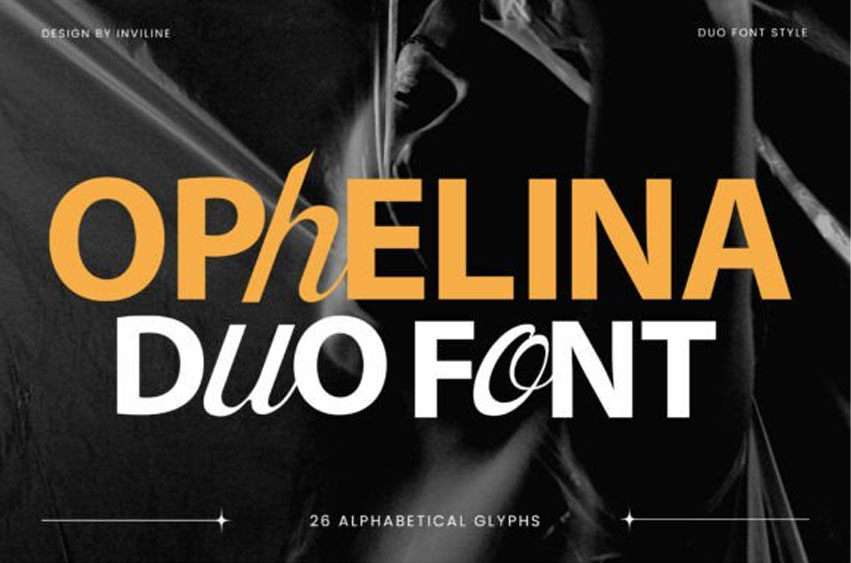
Ophelina Duo Font is an elegant typeface pairing that blends a modern serif with a clean sans-serif for a sophisticated balance. Perfect for fashion branding, wedding invitations, high-end editorials, and chic logo designs.
With refined curves and versatile contrast, Ophelina brings timeless charm and visual harmony to any creative layout. Includes 26 uppercase alphabetical glyphs, available in OTF and TTF formats.